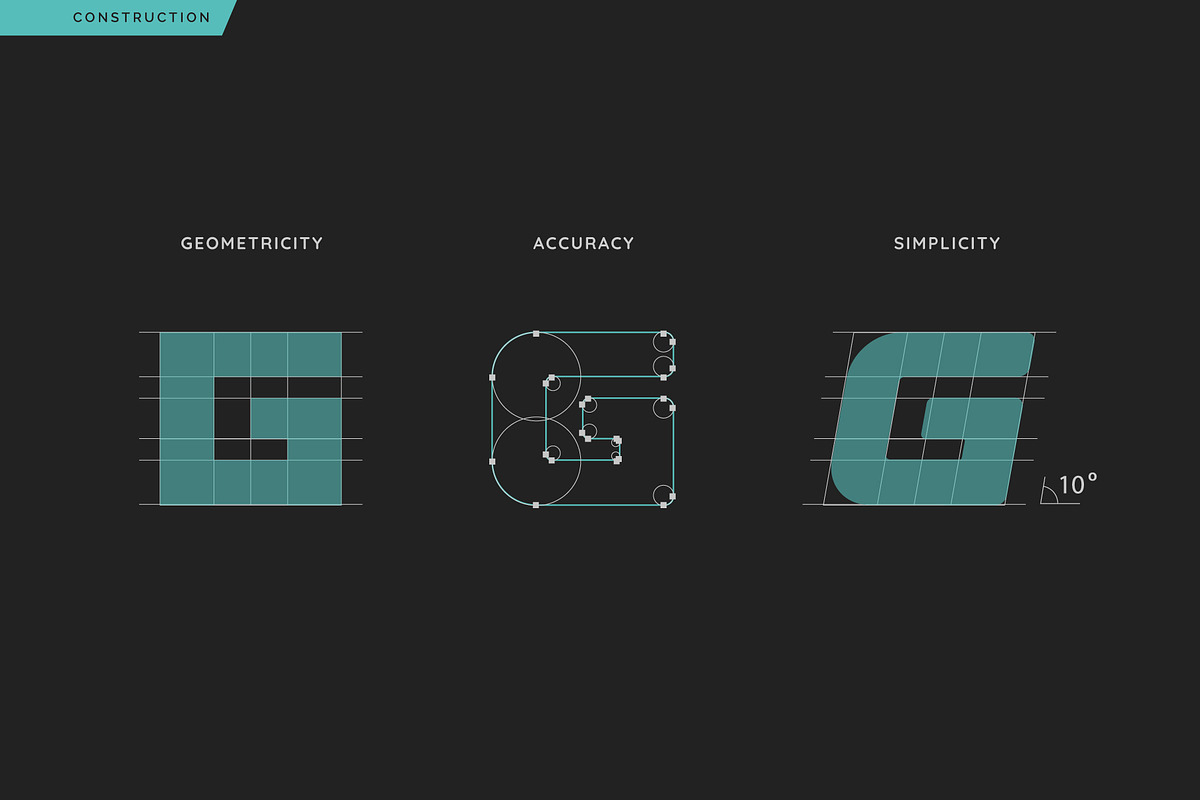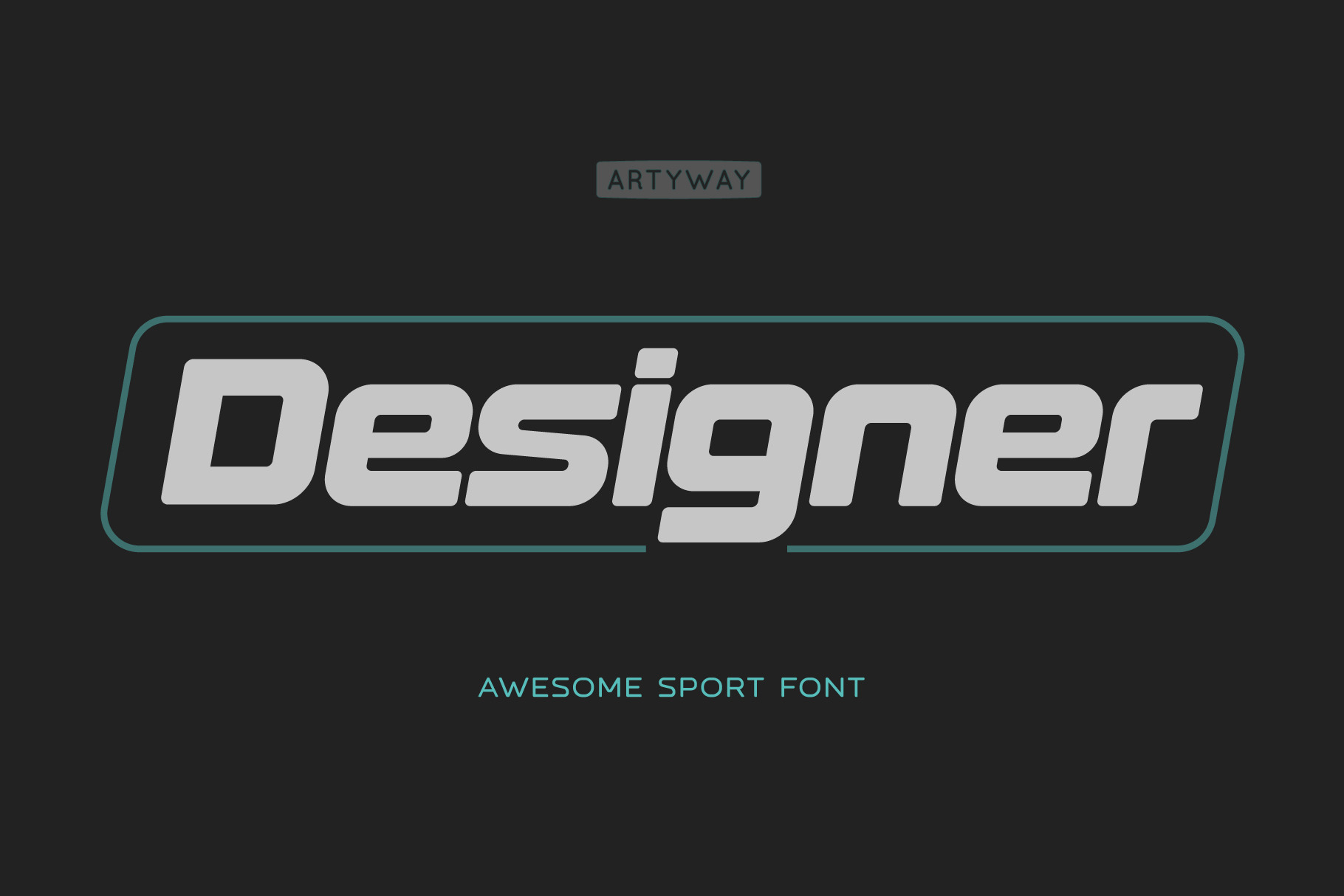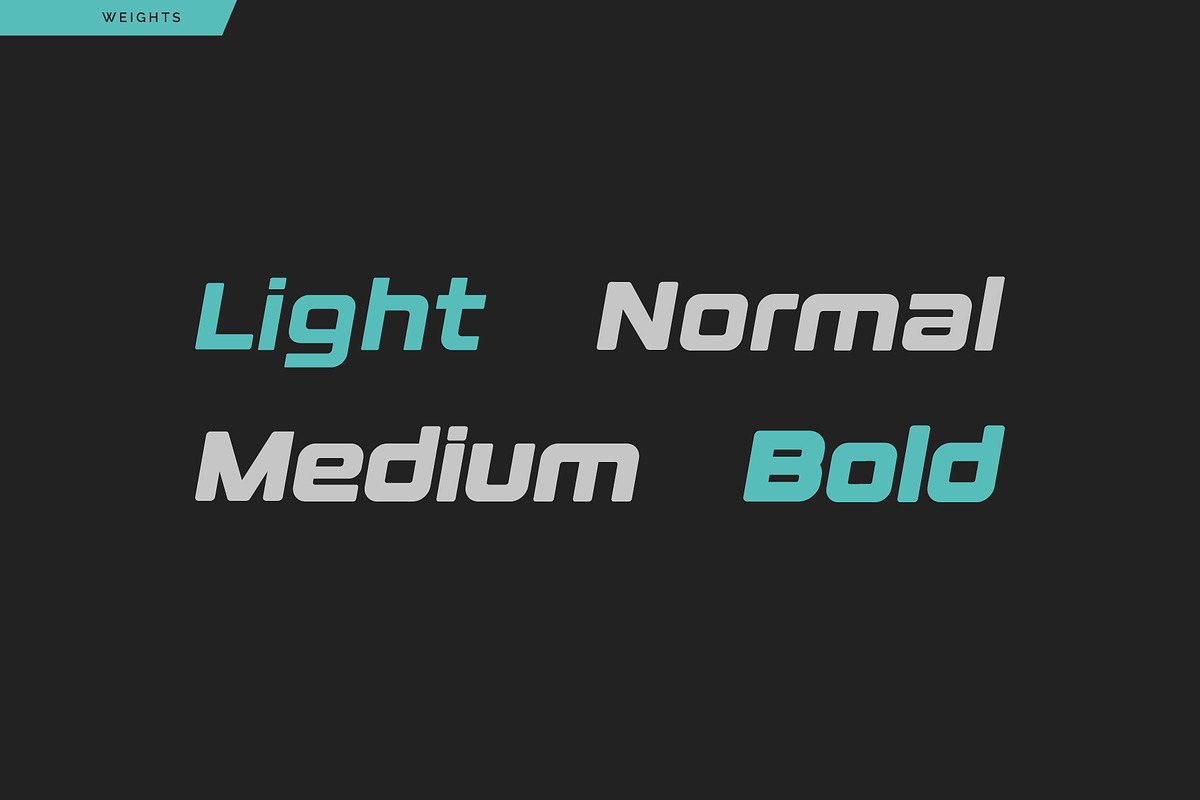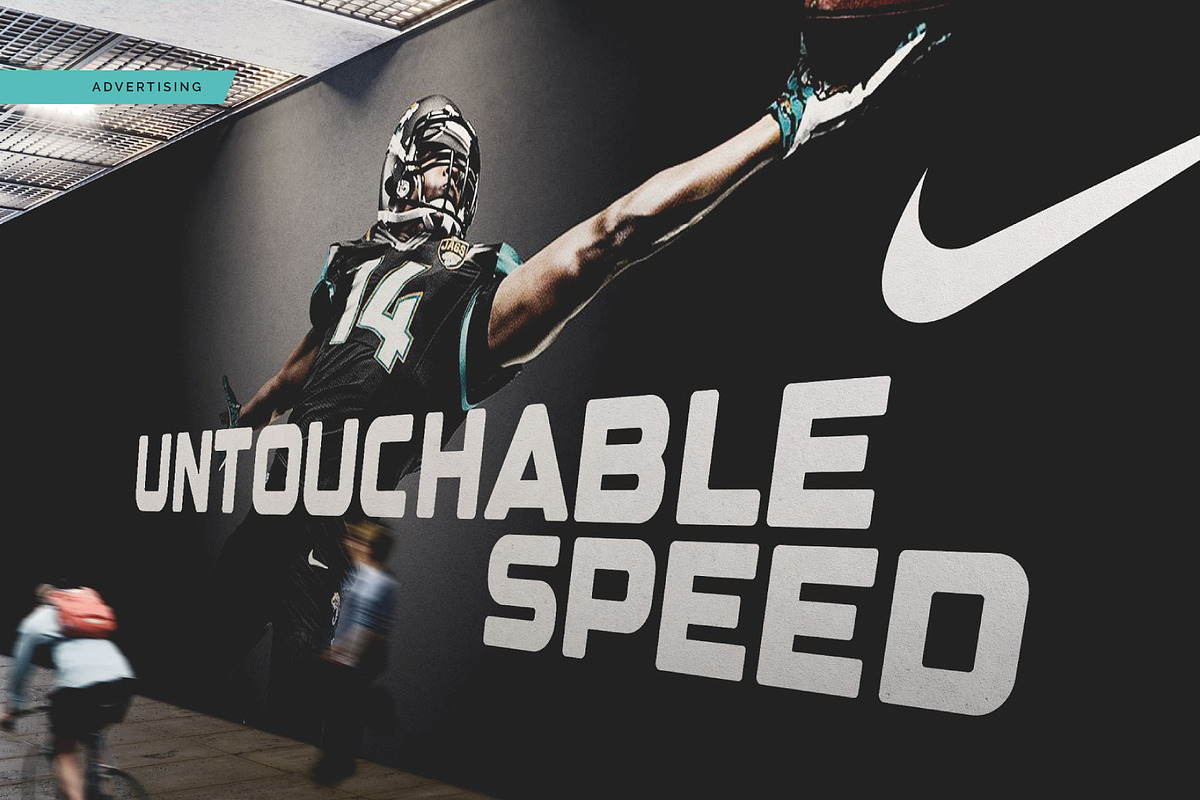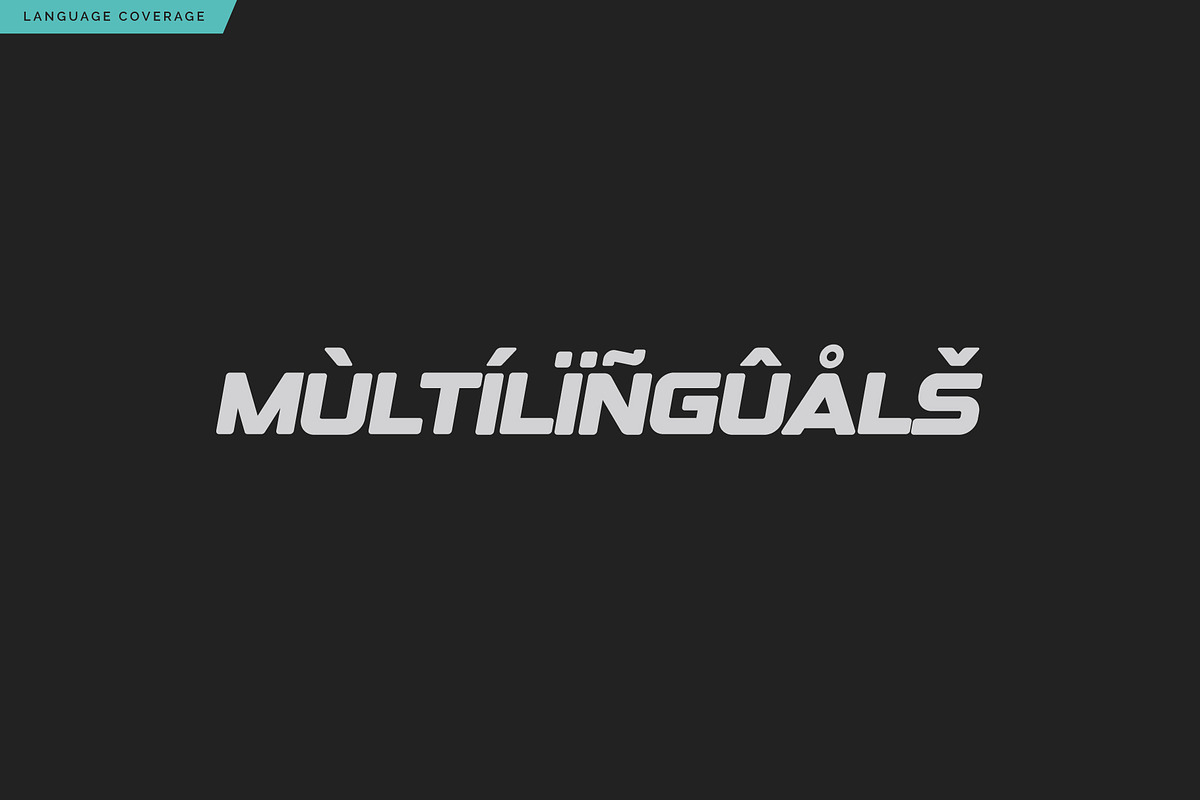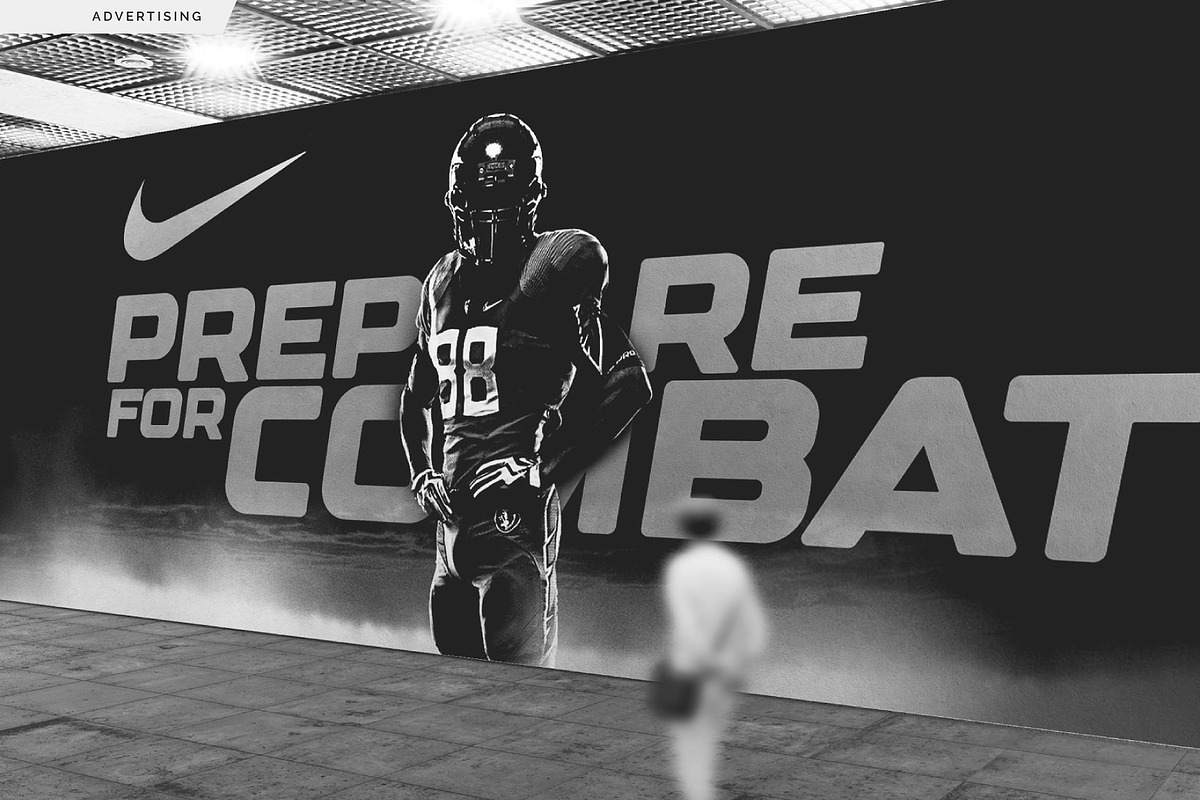
New Designer Font
Updated headliner with new lowercase and weights
Designer is a futuristic sans-serif typeface with a bold personality and a dynamic forward slant. Crafted with precision geometry and soft-rounded terminals, this font injects energy and movement into your visuals—perfect for high-performance branding and striking headlines.
🏁 Ideal For:
- Sports branding & apparel design
- UI/UX headers and tech interfaces
- Advertising campaigns and posters
- Game design & esports visuals
- Fitness gear packaging
- 4 Font Weights: Light, Normal, Medium, Bold
- Full uppercase & lowercase sets
- Symbols, numbers & punctuation
- Multilingual language support